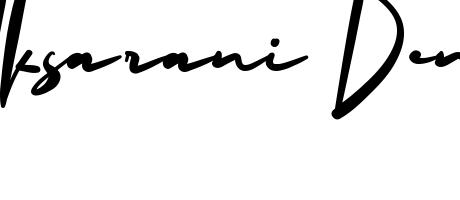
Aksarani Demo
Aksarani Demo, a flowing script font, dances across the page with effortless grace. Its elegant curves and playful swashes evoke a sense of whimsical sophistication. Perfect for invitations, logos, or anything needing a touch of handwritten charm, Aksarani Demo adds a unique, personalized feel to any project. The slightly irregular letterforms add character and authenticity.